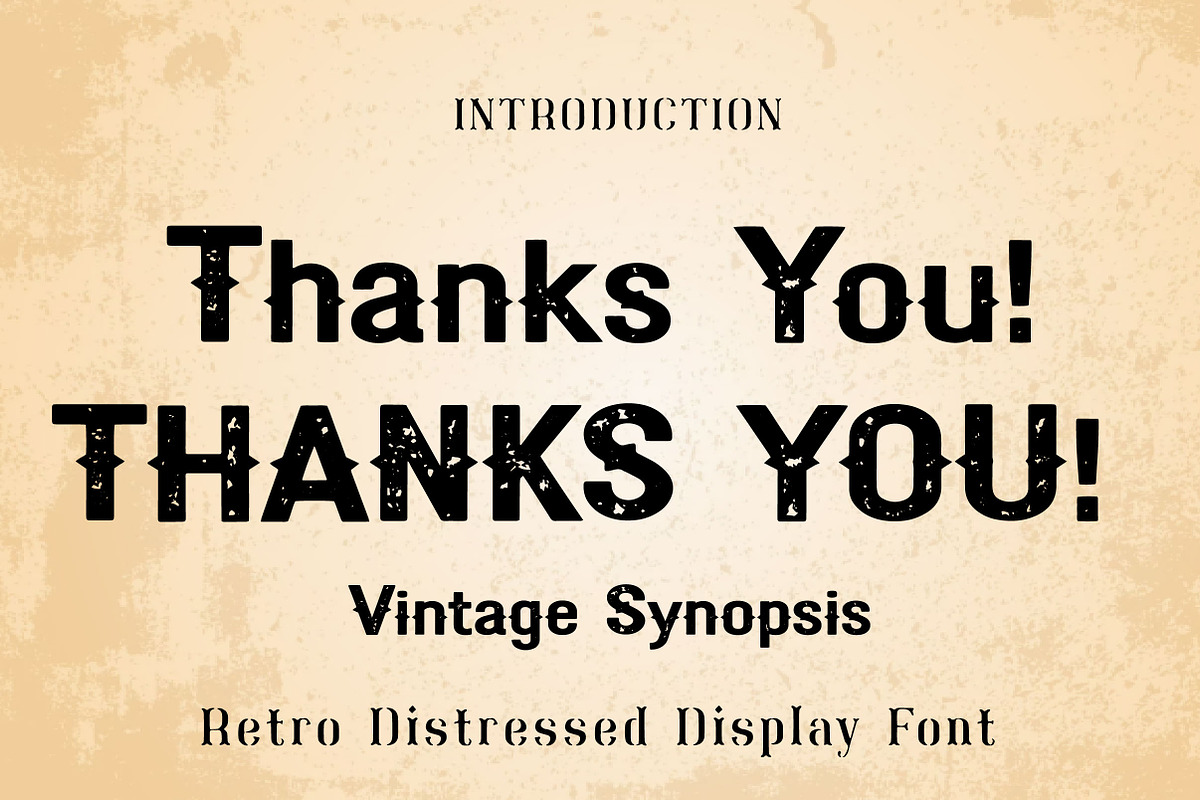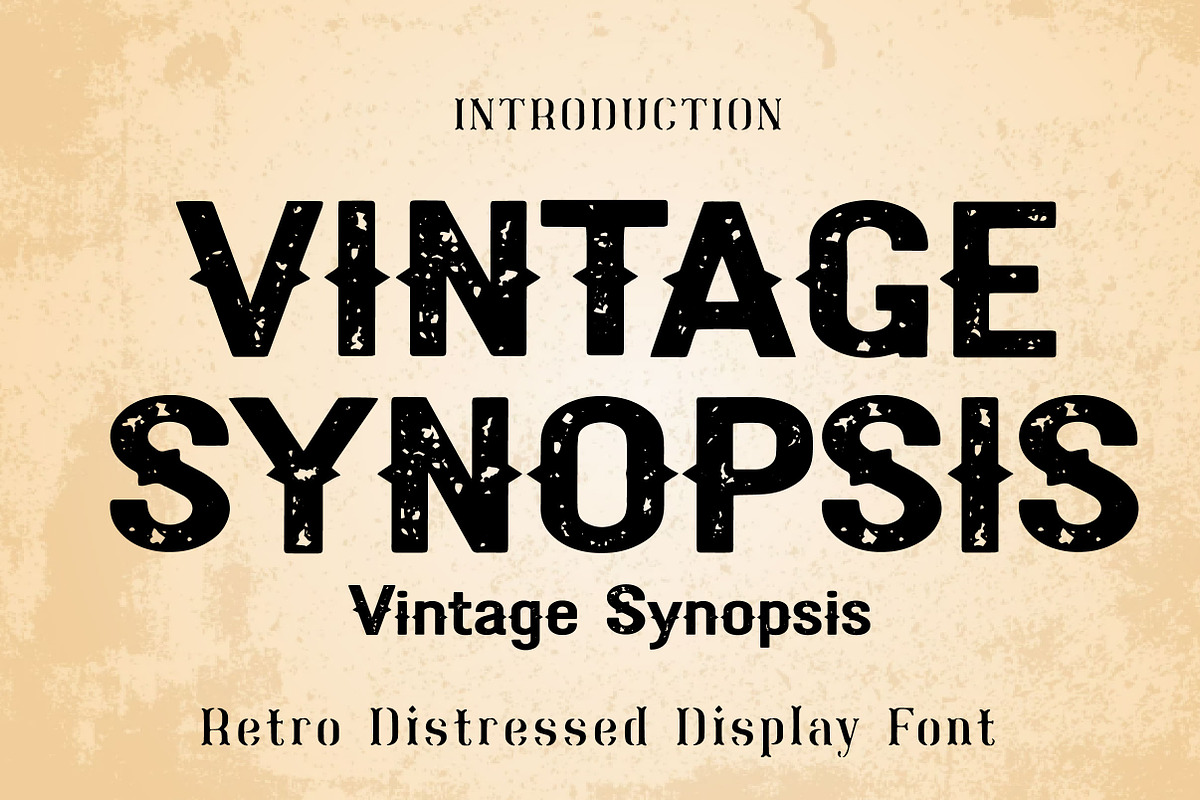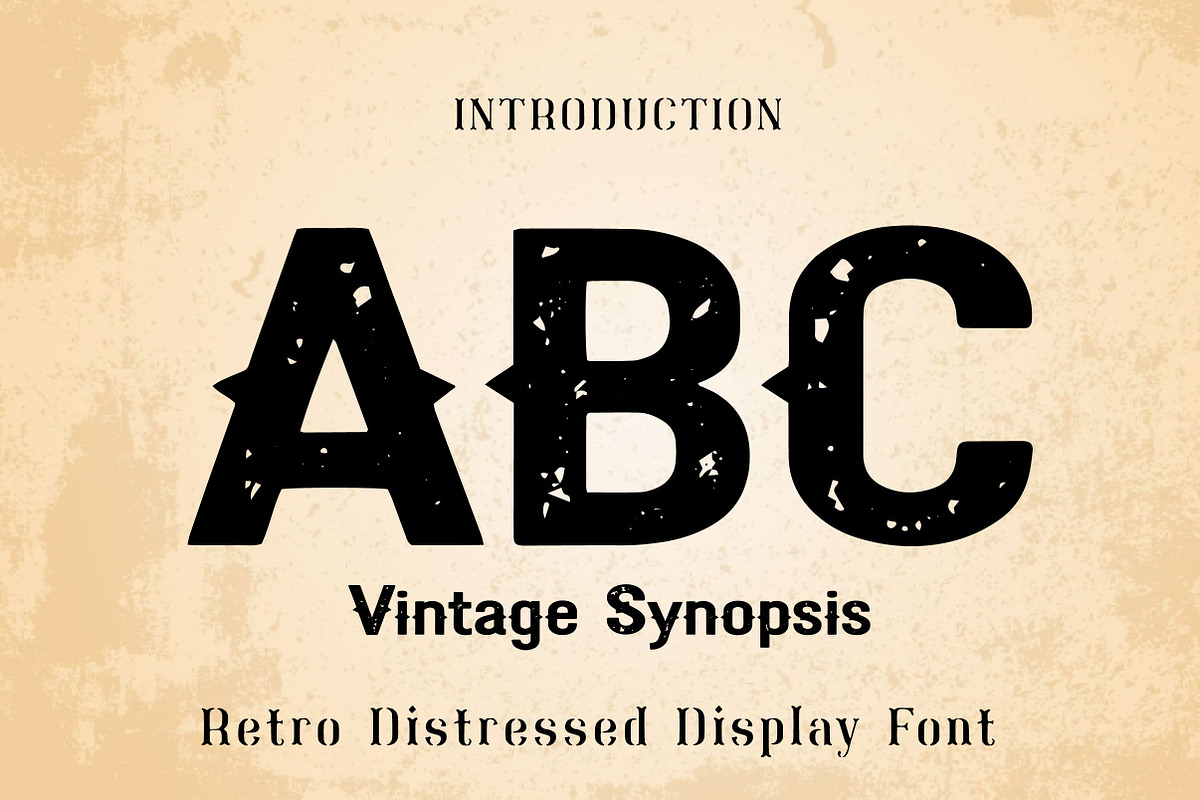
Vintage Synopsis
Vintage Synopsis – Retro Distressed Display Font
Vintage Synopsis is a bold retro display font with a classic, rugged, and nostalgic personality. Its strong letterforms and distressed texture create an authentic vintage look that makes every design feel timeless, expressive, and full of character.
Inspired by old-school typography, Vintage Synopsis is perfect for retro branding, posters, packaging, labels, signage, apparel designs, book covers, and themed marketing materials. Its worn and textured appearance gives a handcrafted vintage charm that instantly adds depth and uniqueness to your creative work.
This font is an excellent choice for designers and creators who want a typeface that feels bold, rustic, and memorable. Whether you are creating vintage-inspired branding or eye-catching headline designs, Vintage Synopsis brings a powerful retro touch to every layout.
Vintage branding
Retro posters
Product packaging
Labels and badges
Apparel and t-shirt designs
Book covers
Signage
Marketing materials
Bold headline projects
Why You’ll Love It
Bold retro display style
Distressed and textured letterforms
Authentic vintage character
Perfect for rustic and nostalgic designs
Great for both print and digital projects
Short Description
Vintage Synopsis is a bold retro display font with a distressed vintage style. Perfect for branding, posters, packaging, labels, book covers, apparel, and headline designs, it adds a nostalgic and character-rich touch to any project.